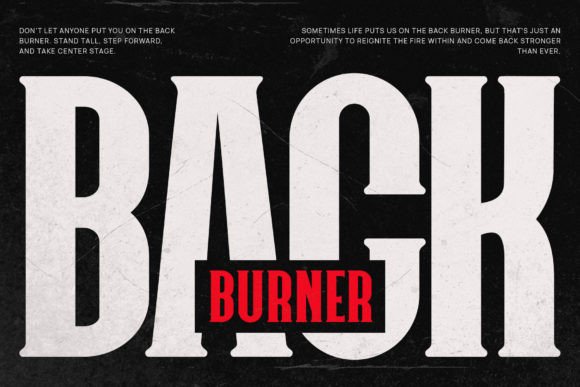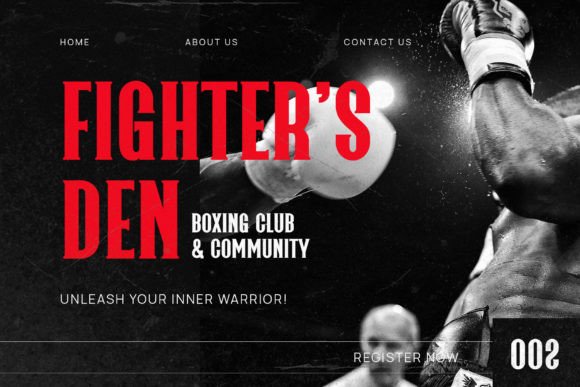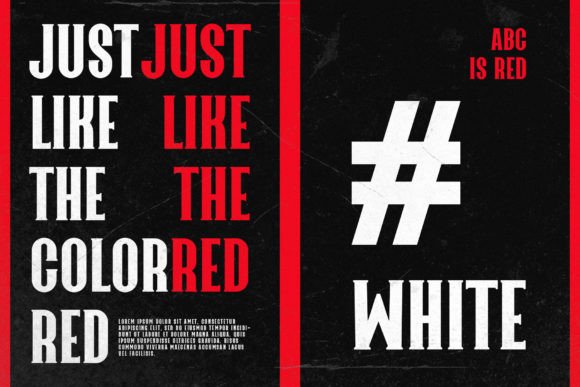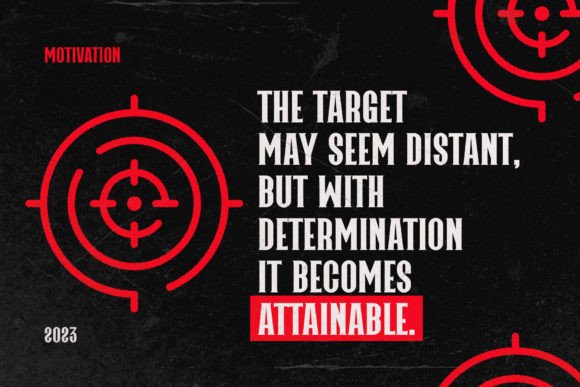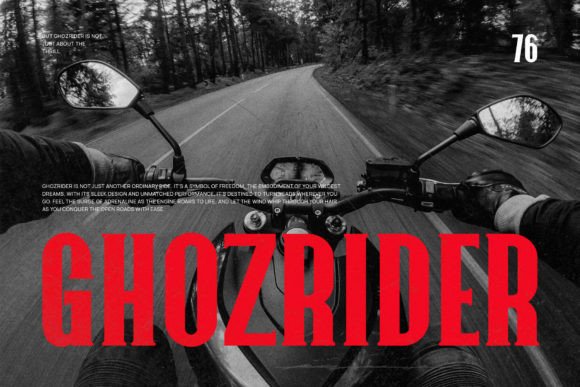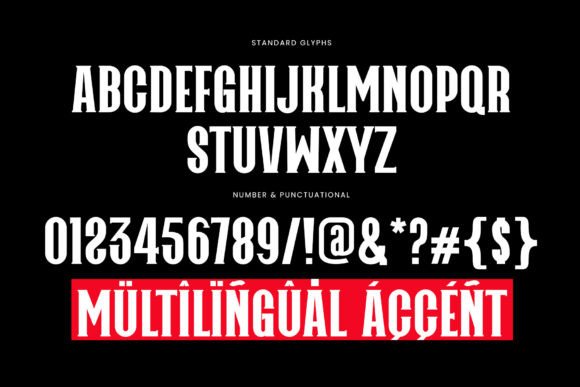
Introduction to Prisma Font
As a designer, there’s nothing quite like the rush of inspiration that comes from stumbling upon the perfect font for a creative project. The search is over for many of us, thanks to the Prisma Font – a game-changing typeface that has taken the design world by storm. Its unique blend of symmetrical proportions, subtle contours, and carefully calibrated contrasts creates a visual harmony that’s nothing short of captivating.
Whether you’re working on a high-quality brochure, a video project, or an advertising campaign, the Prisma Font is an invaluable resource that’s sure to elevate your design to new heights. With its elegant, minimalist aesthetic, this font is perfect for designers who crave a clean and transparent background that lets their creative vision shine through. And the best part? It’s available for free download, making it an essential addition to any design toolkit.
- Features a unique blend of modern and vintage elements, perfect for adding a touch of elegance to designs
- Includes a range of glyphs and characters, allowing for versatility in creative projects
- Designed to be highly legible, making it an excellent choice for body text and headings in designs
Honest Review: Prisma Font
As a designer, I’m always on the lookout for high-quality fonts that can elevate my creative project. I recently came across the Prisma Font, and I must say, it’s a great addition to my design resource library.
Here’s what works well about the Prisma Font:
- ✨ Unique and stylish design that adds a touch of sophistication to any text.
- ✨ Suitable for a wide range of creative projects, from branding to editorial design.
- ✨ Works well with transparent backgrounds, allowing for a seamless integration with any design element.
- ⚠️ Limited character set, which may not be ideal for longer texts or complex typography.
- ⚠️ May require some adjustments to achieve the perfect balance of style and legibility.
Overall, I’m impressed with the Prisma Font, and I think it’s a great choice for designers who want a high-quality, free font that can add some creativity to their projects. Just be aware of its limitations, and you’ll be good to go.
The Prisma Font is commonly used in creative projects, such as graphic design, digital art, and marketing materials. It’s also ideal for use in social media posts, blog articles, and other online content.